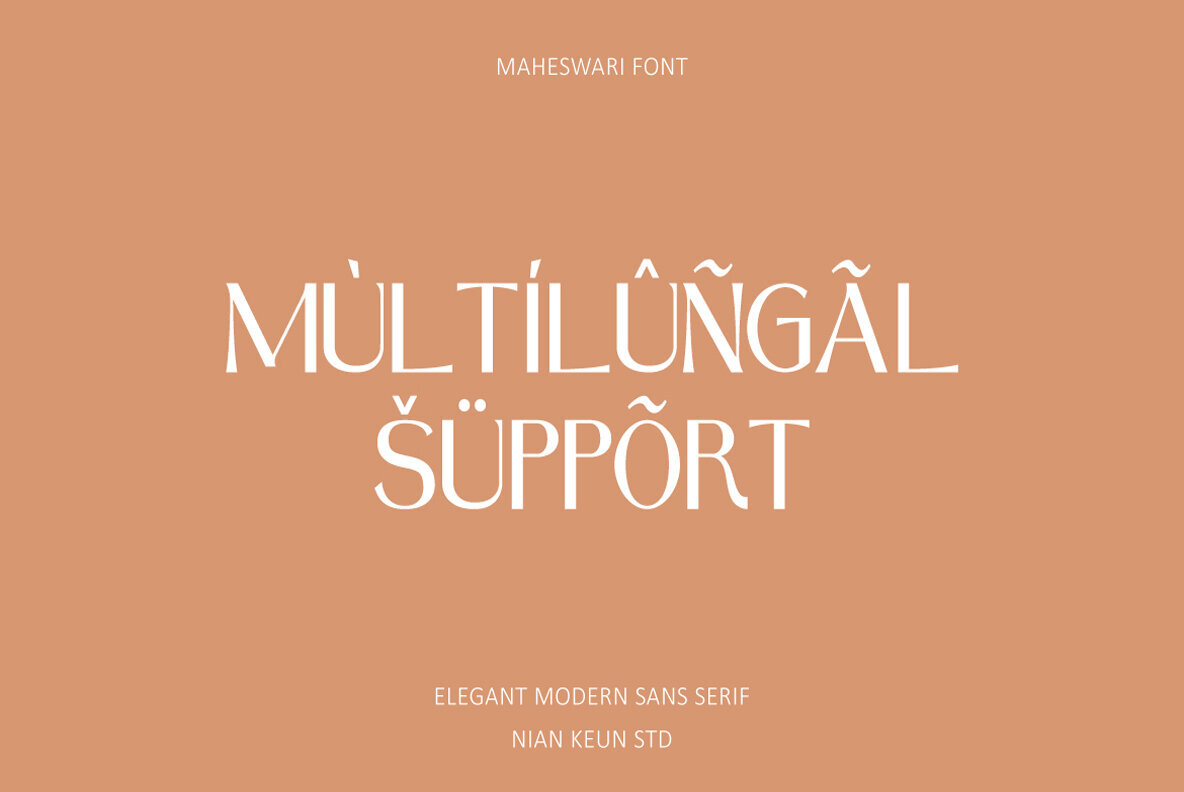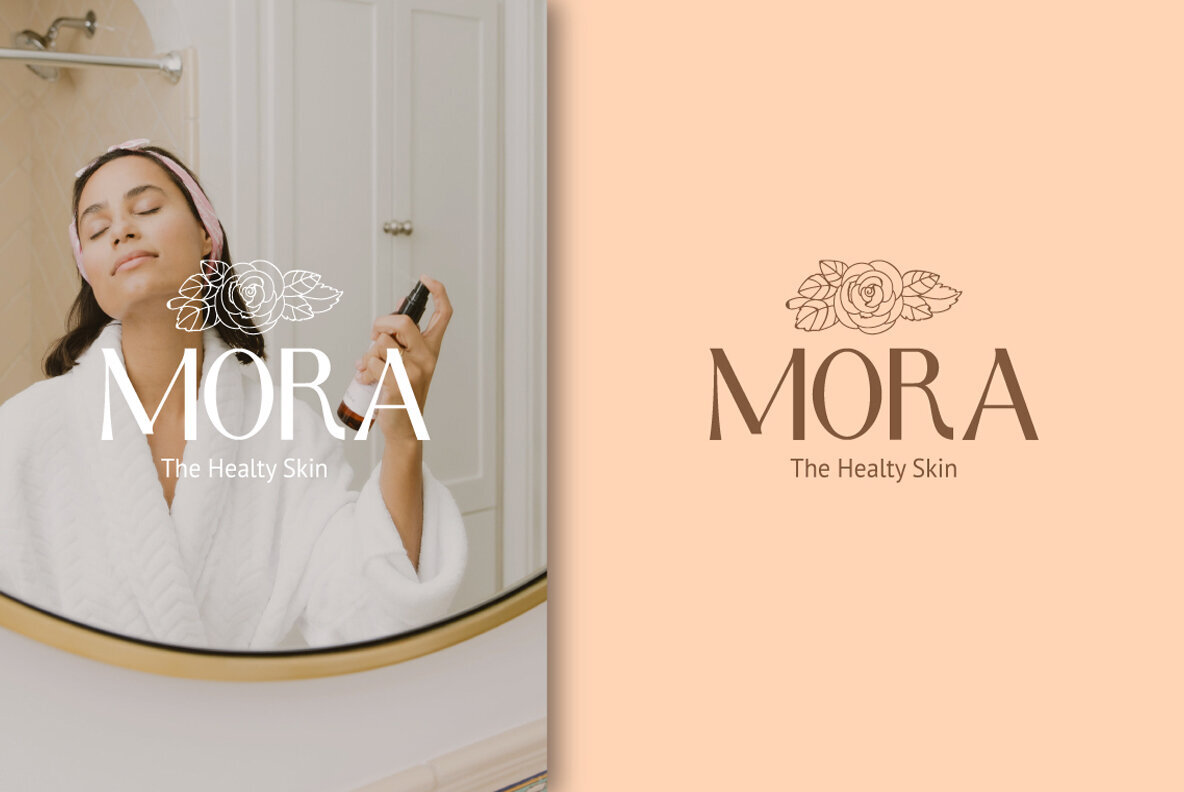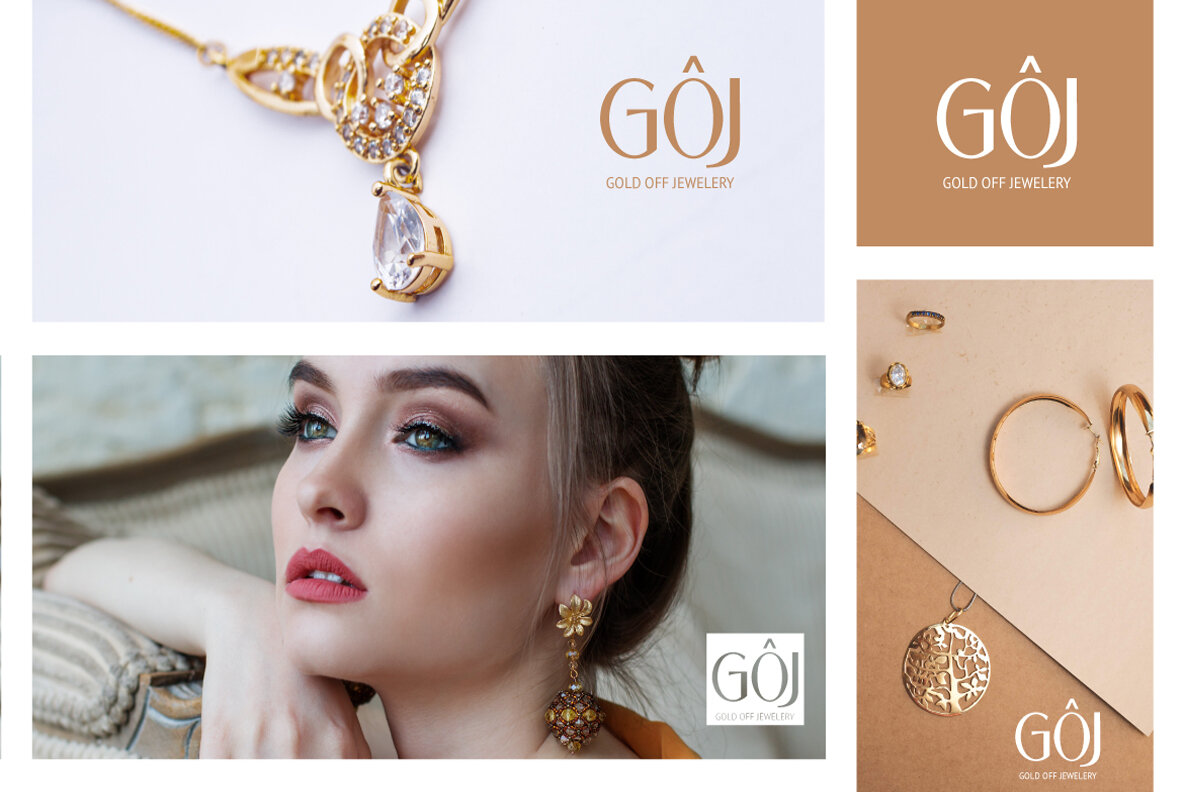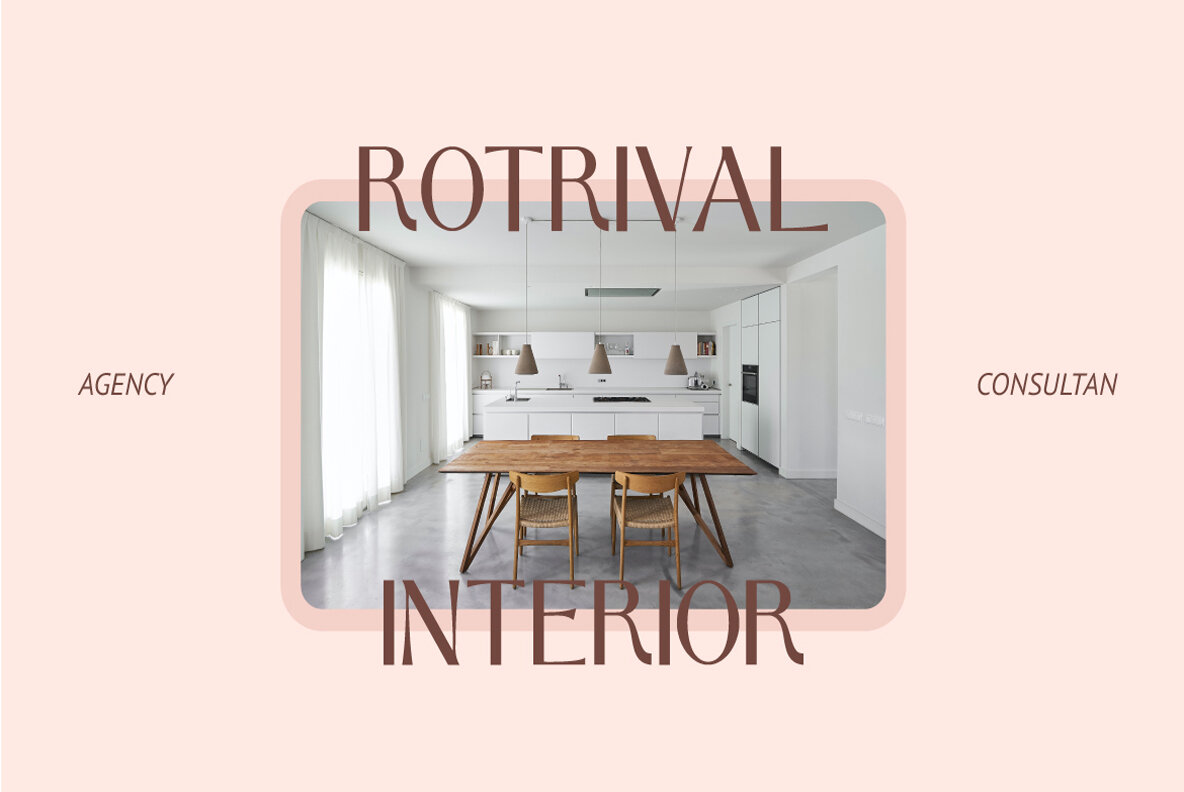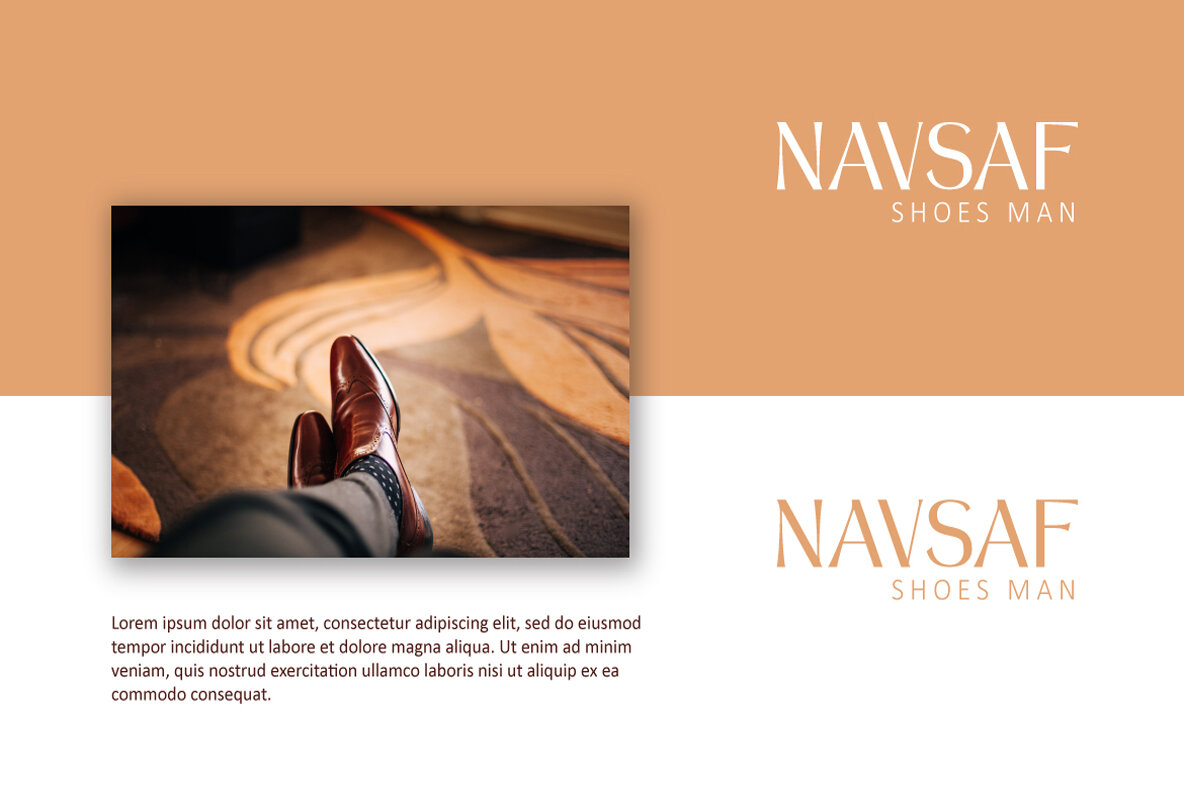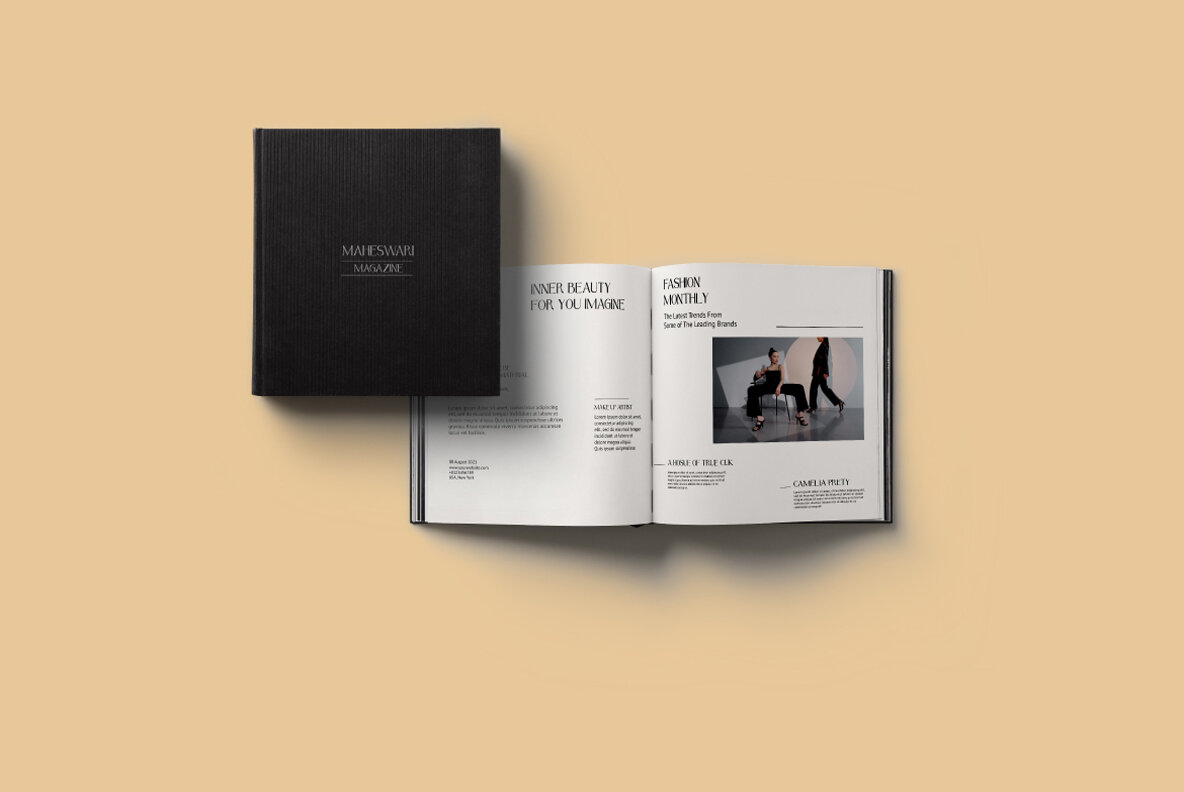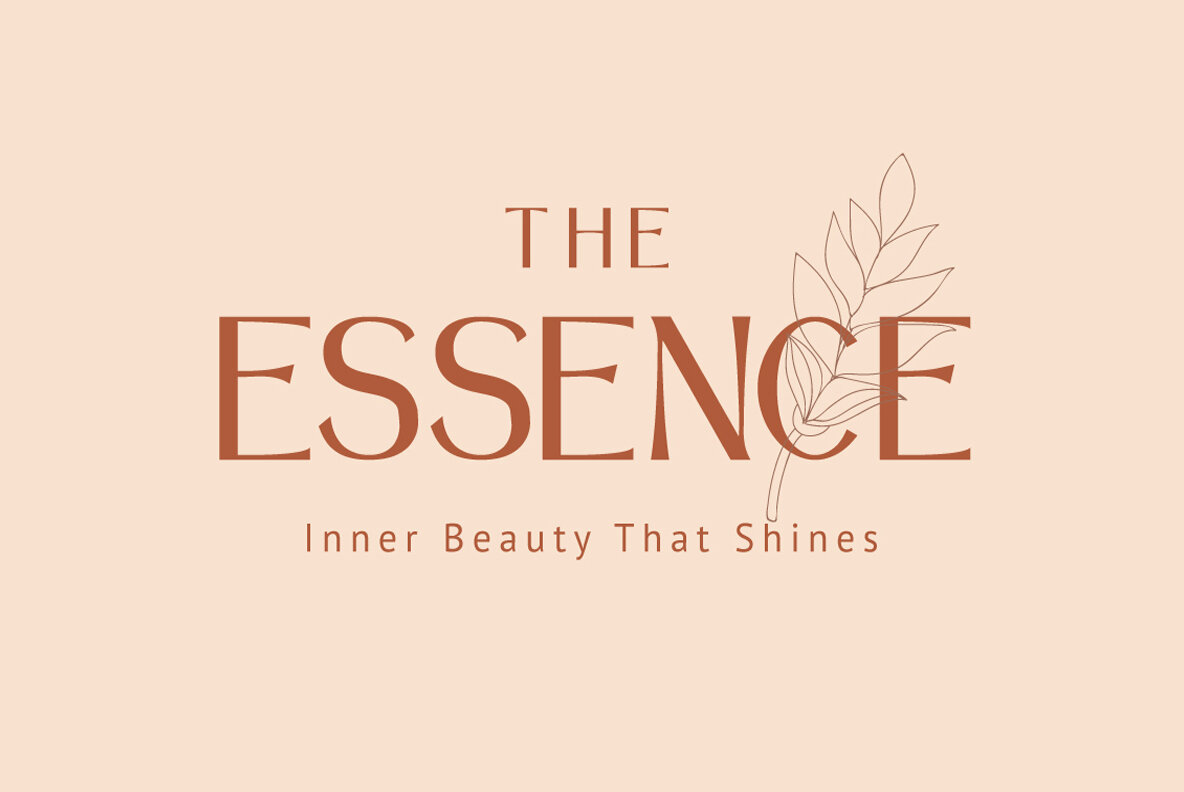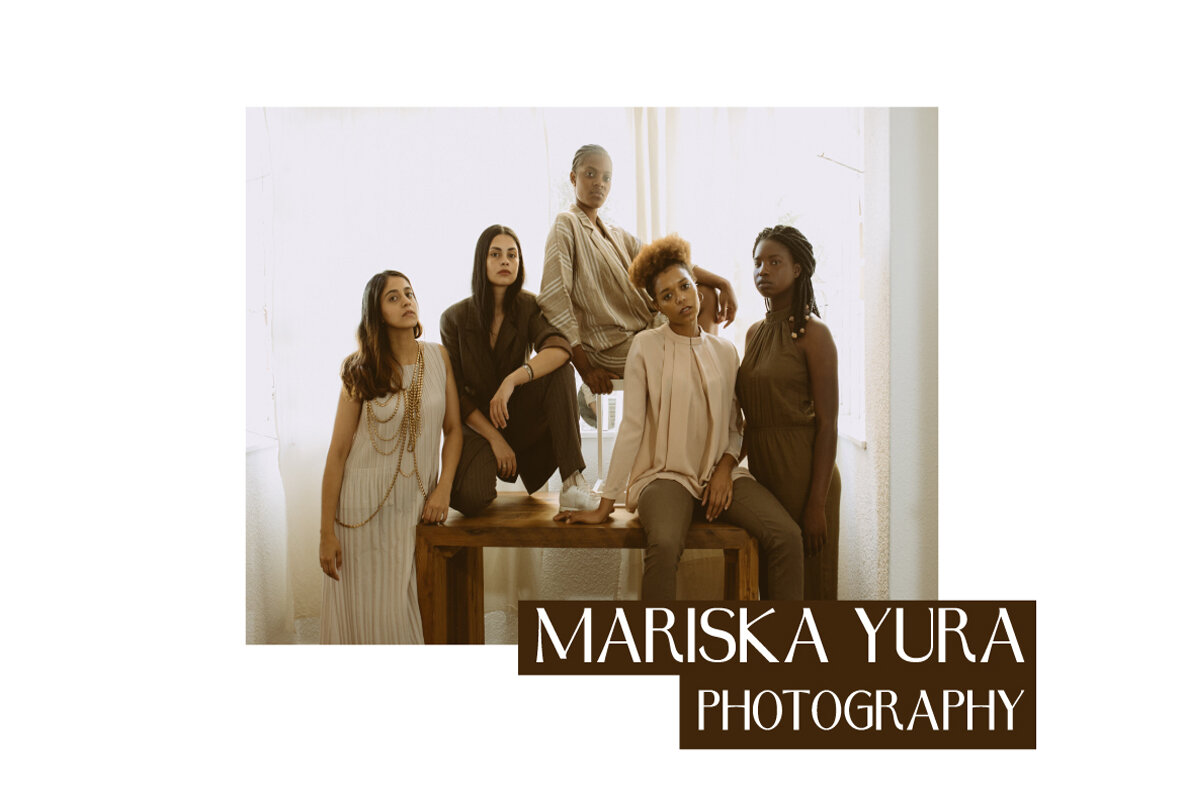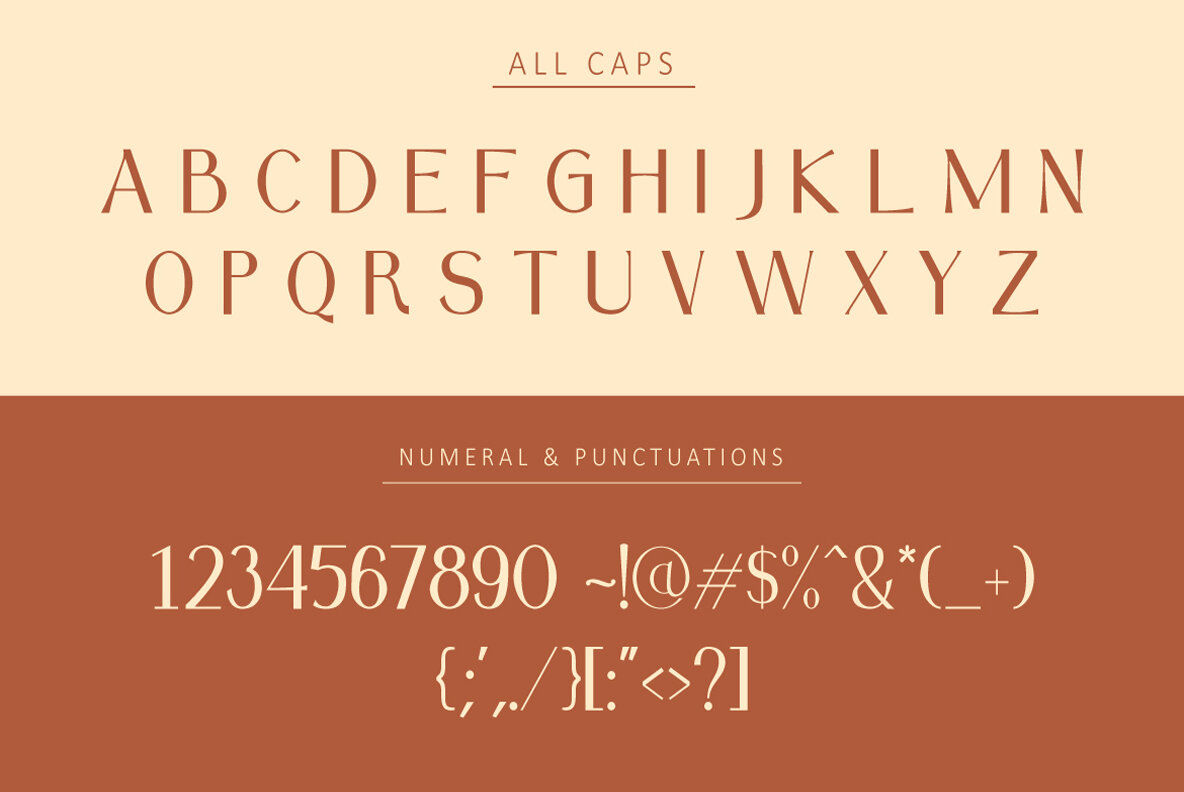
Maheswari Font
Maheswari Regular
Maheswari is an elegant font meticulously crafted for those who appreciate luxury. It combines sharp lines with elegant curves, offering a unique blend of sophistication. This versatile font is ideal for various design applications, including jewelry designs, hotels, magazines, and branding logos.Maheswari: Elegant Font with Sharp and Curved Features